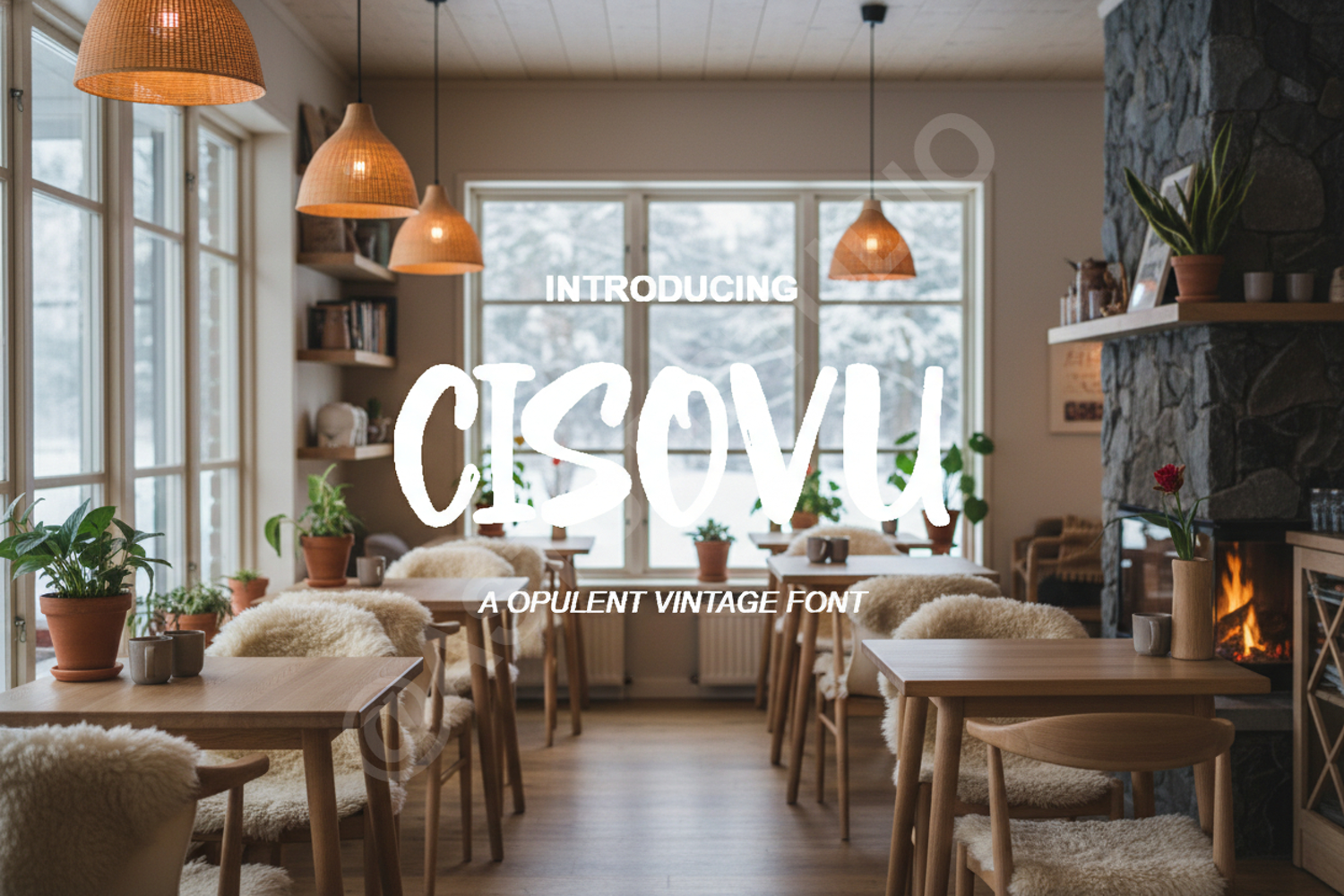
Cisovu - Elegant Modern Serif Display Font
Cisovu
Cisovu is a premium serif typeface designed to bring a touch of sophistication and modern elegance to any creative project. With its clean lines and unique character, this font balances classic proportions with contemporary flair, making it an essential addition to any designer's toolkit. Whether you are crafting a high-end brand identity or a minimalist editorial layout, Cisovu provides the professional polish your work deserves.
- Luxury Branding and Identity: Perfect for logos that require an upscale feel.
- Editorial Design: Ideal for magazine headers, titles, and sophisticated body text.
- Wedding Invitations: Adds a timeless and romantic touch to stationery and event decor.
- High-end Packaging: Enhances product value through elegant typography.
- Social Media Graphics: Creates eye-catching and professional visual content.
- Professional Business Cards: Ensures a memorable and stylish first impression.